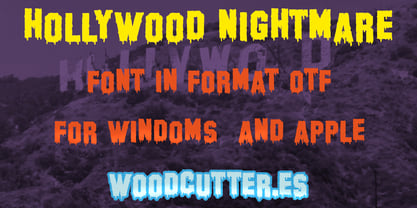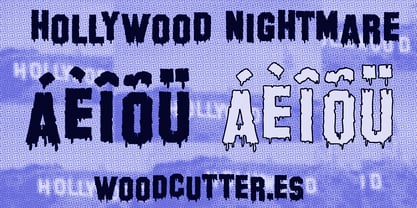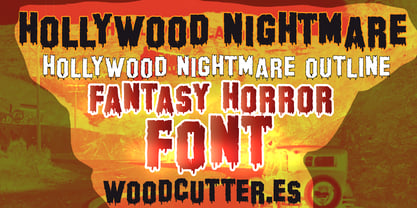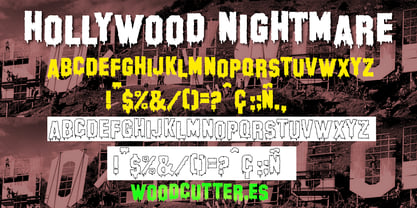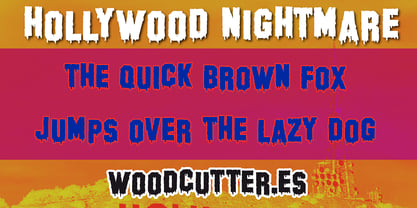
Hollywood Nightmare
by Woodcutter
The Hollywood Nightmare Font Family was designed by Jordi Manero and published by Woodcutter. Hollywood Nightmare contains 2 styles and family package options. More about this family
Hollywood Nightmare is an all-caps typeface with accents that twists the iconic style of the famous Hollywood sign into a bloody, surreal nightmare. This font blends the glamour of classic cinema with graphic horror aesthetics, resulting in a striking and unforgettable design. The letters retain the bold, geometric form of the original sign, but now they melt, drip ink like blood, and seem torn from a vintage horror scene.
The font family includes two versions:
Hollywood Nightmare, with solid, warped letters and a dripping effect, as if the scorching heat of a Californian nightmare were melting them away.
Hollywood Nightmare Outline, which features the same letter shapes but in outline form, enhancing a ghostly, spectral appearance.
Both versions are perfect for horror movie titles, comic book covers, posters, or any design that seeks to honor film culture with a dark twist. Hollywood Nightmare is a typeface that turns the American dream into a chilling horror story.